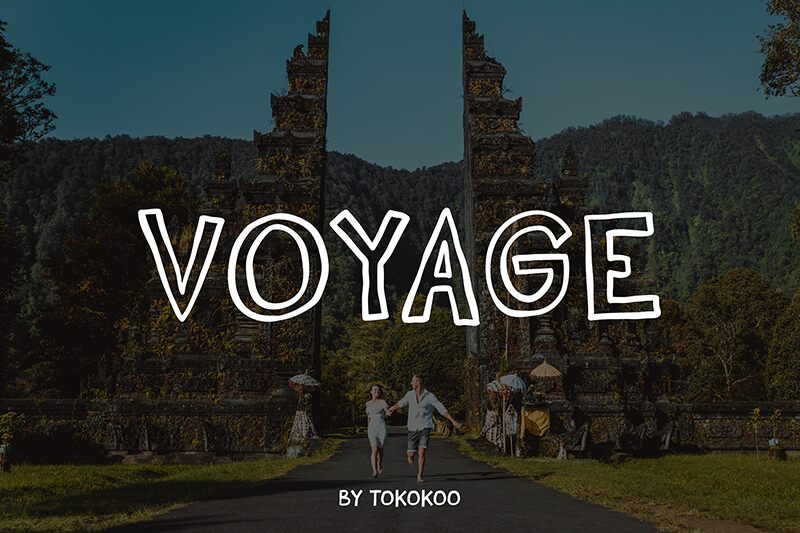
VOYAGE
If you’re ready to take your typography skills to the next level and bring a unique, stylish touch to your branding and packaging designs, you can take a look at Voyage!
Created and shared by Tokokoo Studio, Voyage is a cartoon display font with a vintage aesthetic that combines vintage cartoon design features with retro typeface designs, making it the perfect solution for logos, posters, album art, magazines, book designs, etc. And if you decide to go for the full version of the font, Voyage has a variety of other features including a set of ornaments, alternate letters, and ligatures.